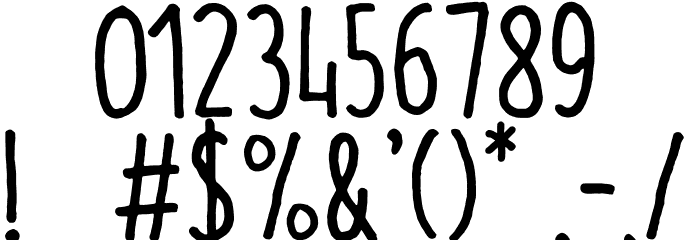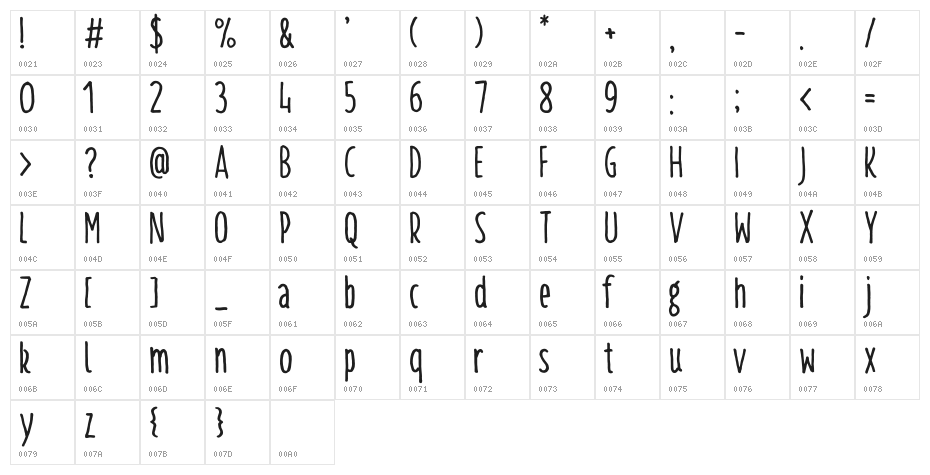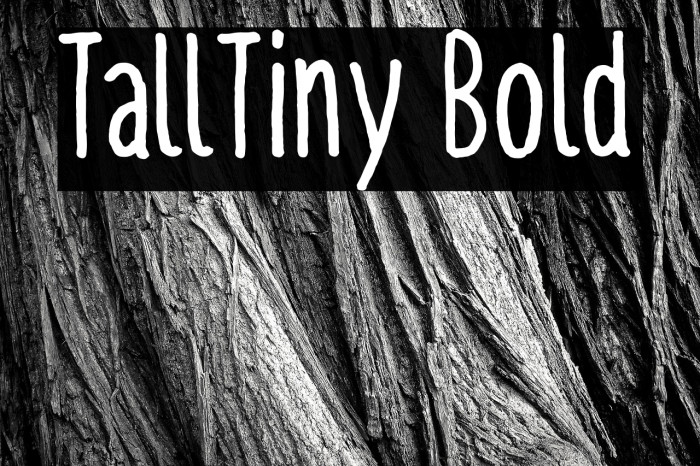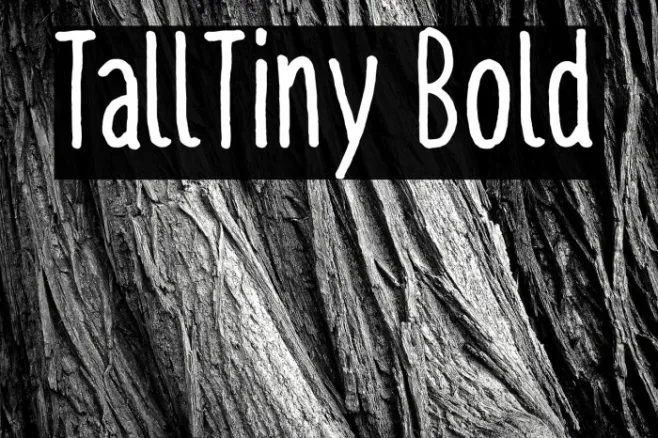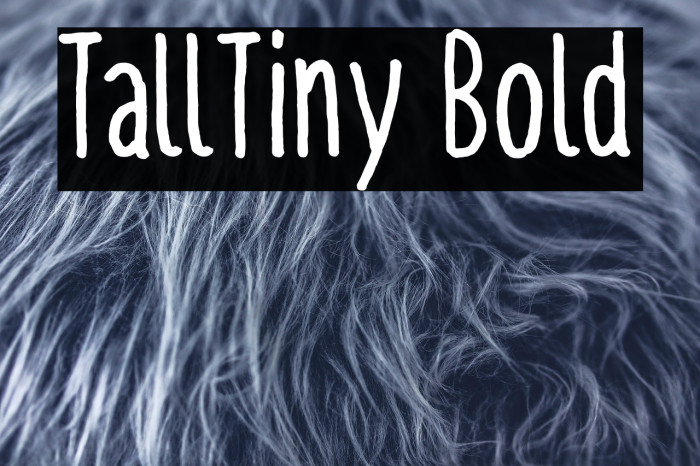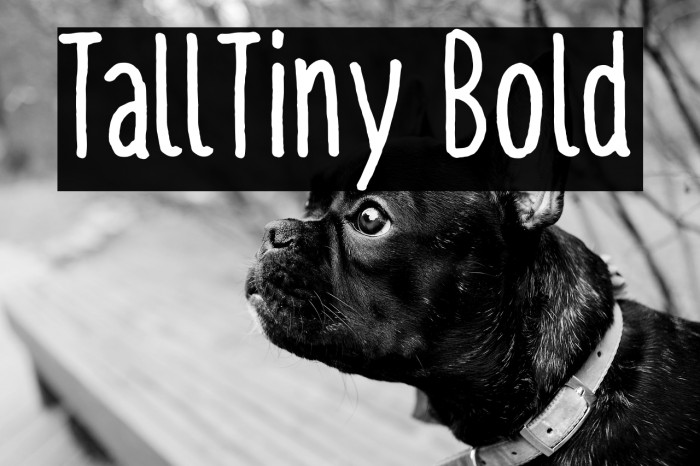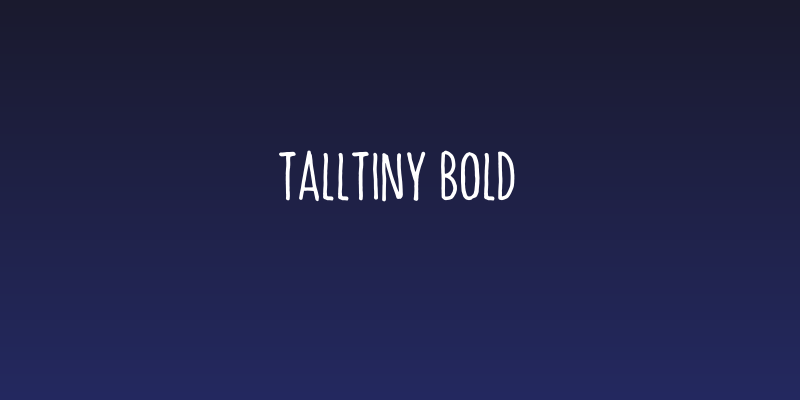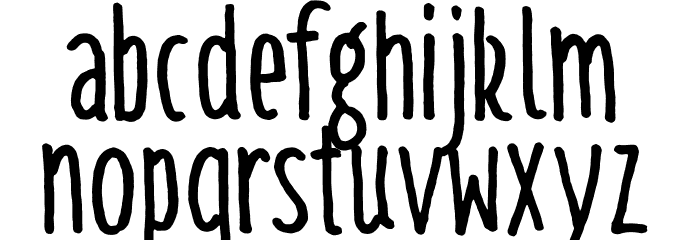
TallTiny Bold Font
TallTiny Bold Description
This font features a playful and quirky design with tall, narrow characters that give it a unique and whimsical appearance. The strokes are bold and slightly irregular, adding a hand-drawn feel to the text. The uppercase letters are particularly elongated, while the lowercase letters maintain a consistent height, creating a harmonious balance. Numbers and special characters follow the same style, ensuring a cohesive look across all elements. The font's distinct personality makes it suitable for creative and informal projects.
| Proposed Projects | Ideal for children's books, greeting cards, playful branding, and creative posters. |